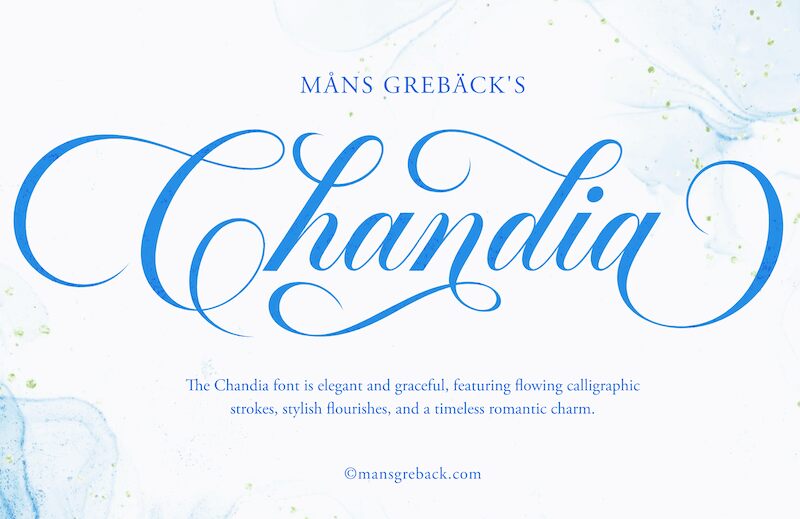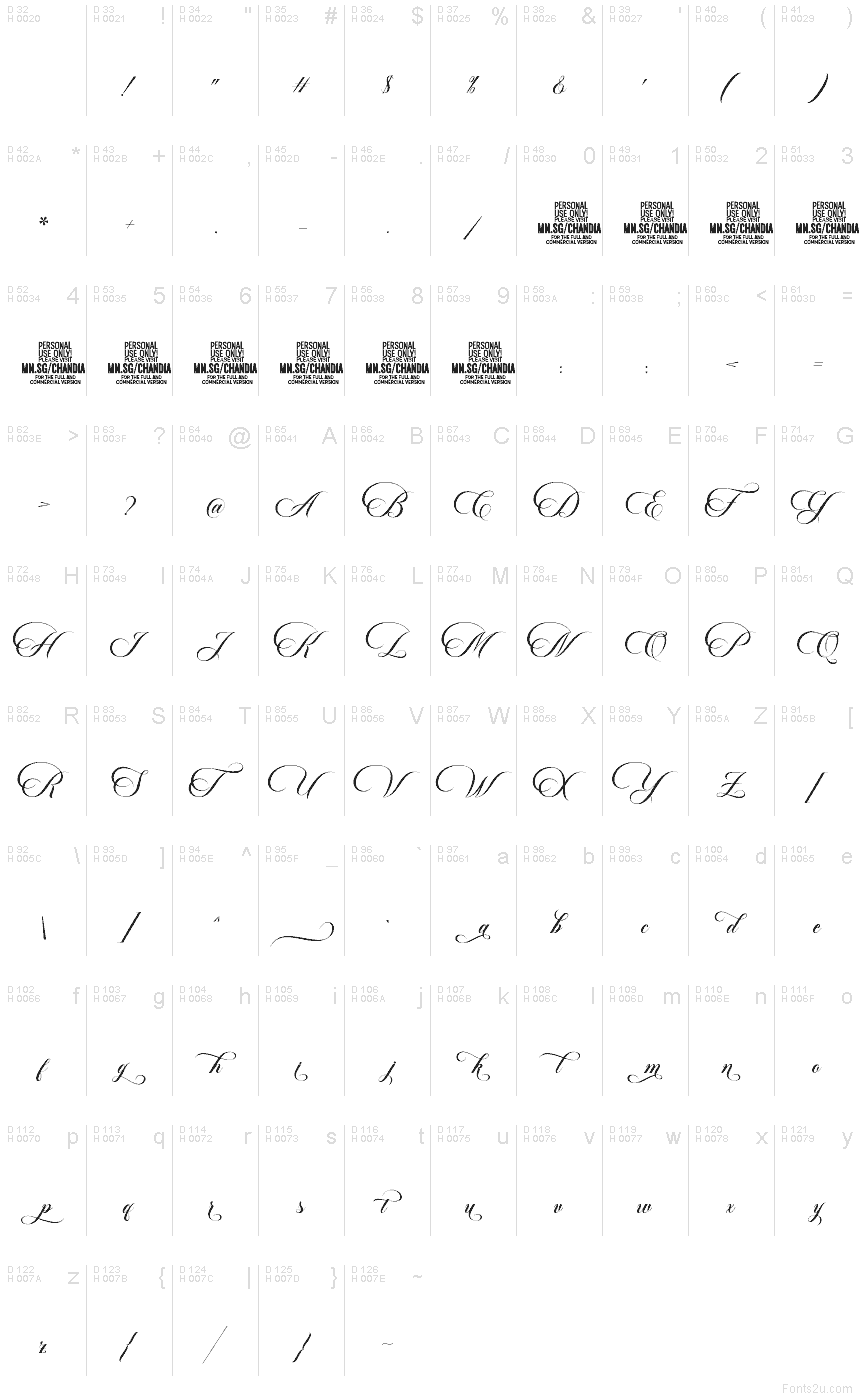
Chandia Decorative font by Mans Greback is a free decorative calligraphy font that turns a single word into a sweeping centerpiece. The Chandia typeface family glides across the page with long, ribbon-like swashes, crisp thin lines, and inky flourishes that feel straight out of a hand-engraved invitation. Its rhythm is flowing but controlled, giving you drama and romance without losing legibility at larger sizes.
Using Chandia Decorative, headlines and names instantly gain that “kept in a box with tissue paper” sense of occasion. This free font shines on wedding invitations, event branding, perfume or jewelry packaging, certificates, boutique logos, and elegant social media graphics. Pair it with a clean sans serif set in small caps to anchor all the curves, and let Chandia handle the names, titles, and short phrases that deserve the spotlight.
Use an underscore (_) after any word to create a swash. Example: Beautiful_